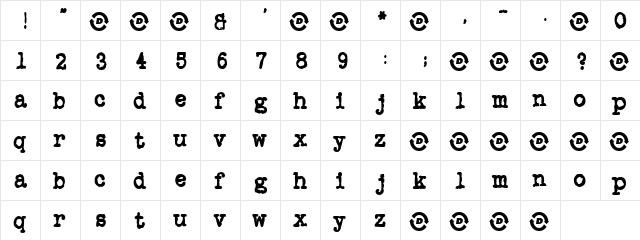
OnYourBike Regular
Design Context for OnYourBike Typeface
OnYourBike takes a measured approach to typography — its balanced proportions and neutral character make it a reliable workhorse for both digital and print work.